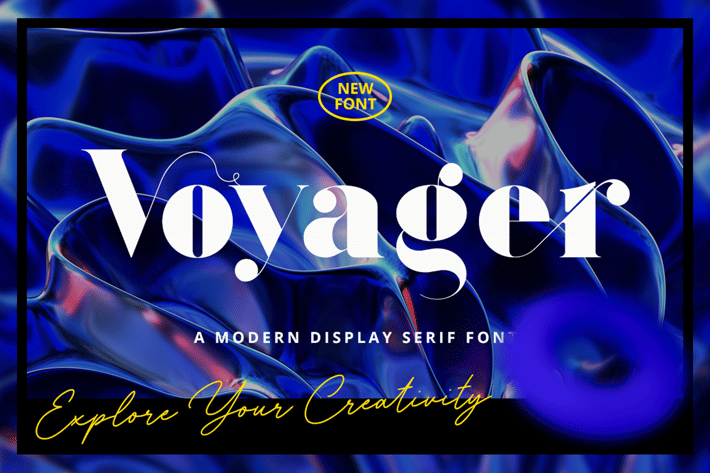
Vayager - Display Serif Font
Vayager is a bold serif font. Thick lettered and incredibly versatile, this font will make each of your designs come alive.